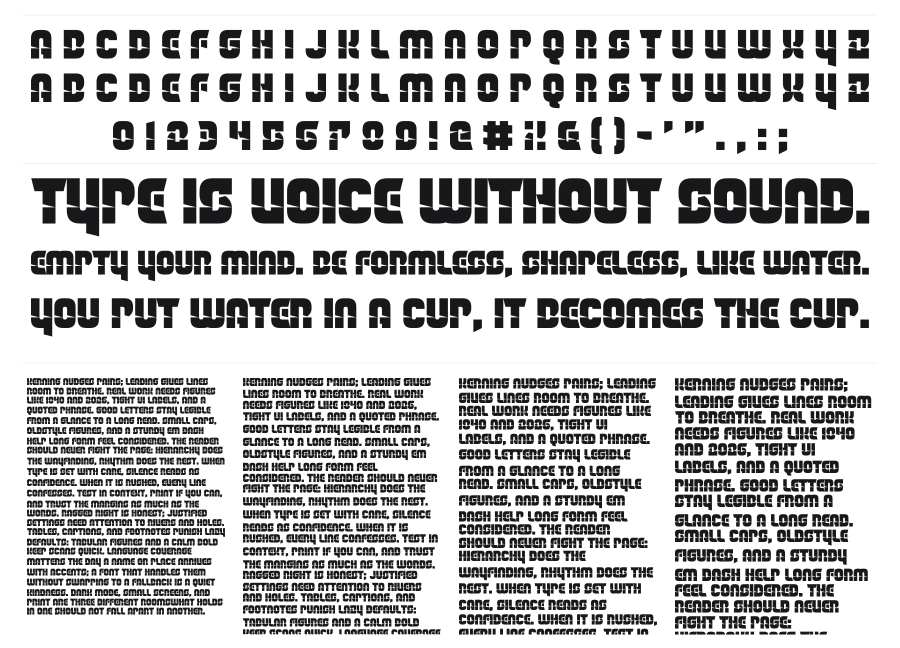
The Light Brigade
The Light Brigade is a heavy, blocky stencil face from Chequered Ink with a militaristic backbone and a futuristic lean. The uppercase-only letterforms are built from thick geometric slabs with clean stencil breaks, giving it the feel of markings stamped onto armored plating or cargo crates. Works best at large sizes for headlines, posters, and display settings where you need something that reads as both tactical and commanding.